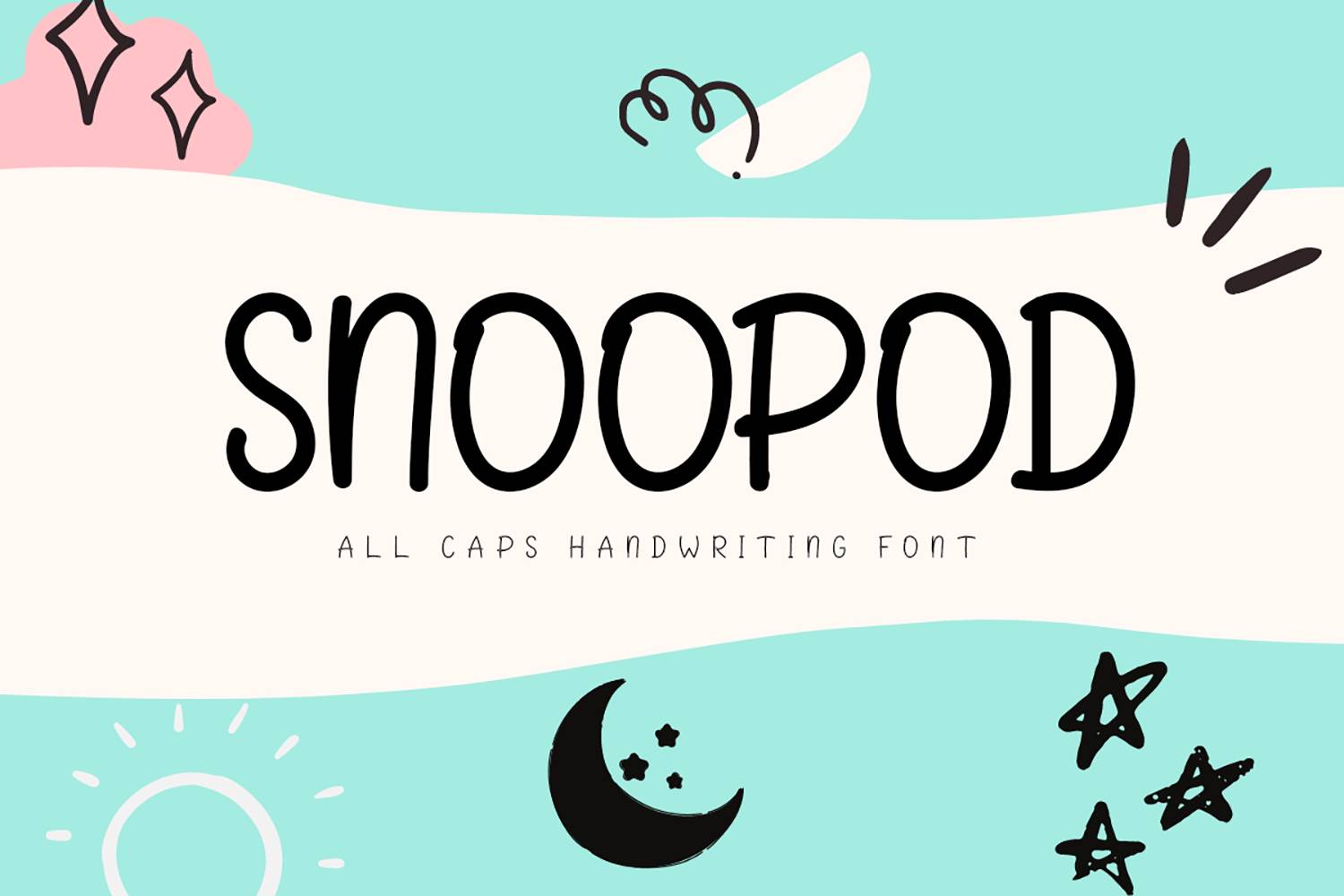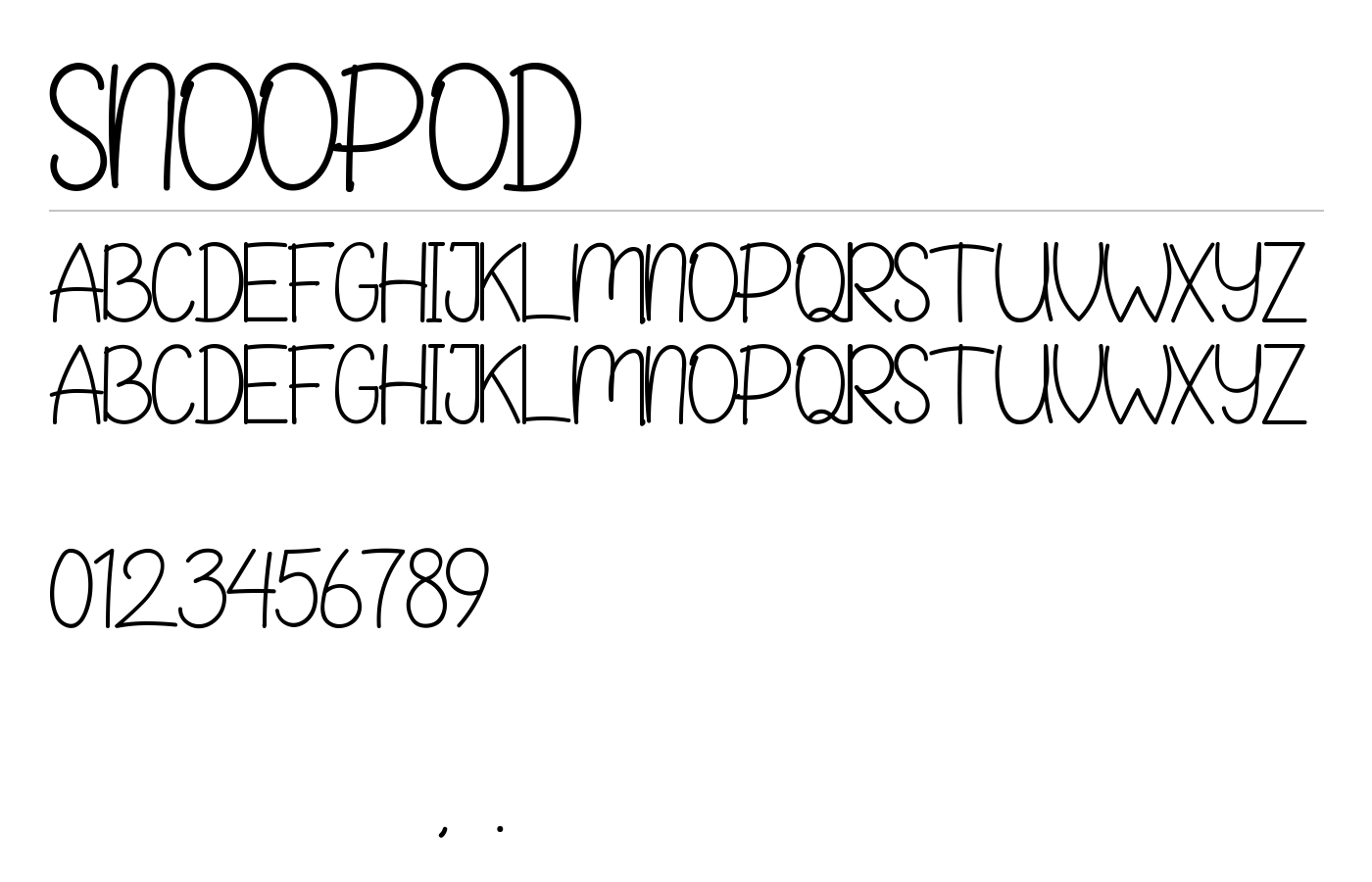
Snoopod is a playful, hand-drawn sans serif font with tall, narrow letterforms and a casual, whimsical feel. Its thin strokes and slightly irregular shapes make it perfect for informal designs, children’s books, or creative projects that want a friendly, approachable vibe. This font works well in headlines, logos, and any layout that benefits from a light, airy touch.
Snoopod Font
About Snoopod Font
| Font family | Snoopod Font |
| Designer | Ahmad Kartiwa |